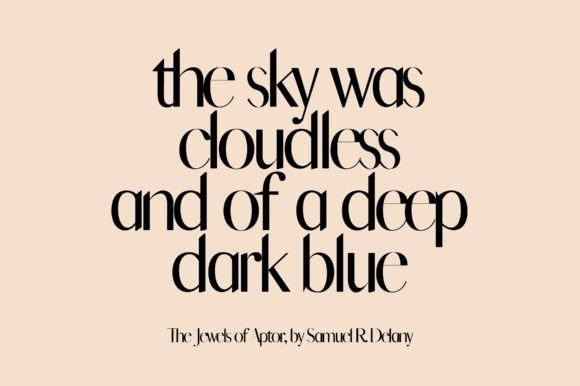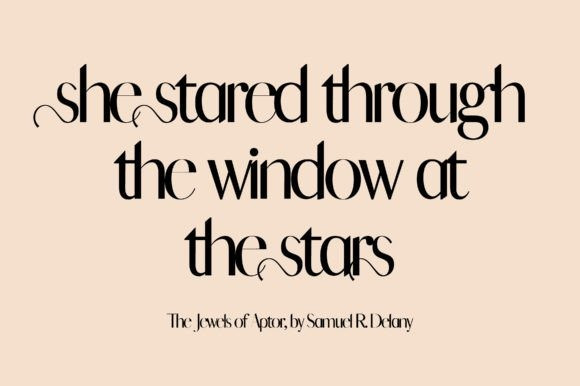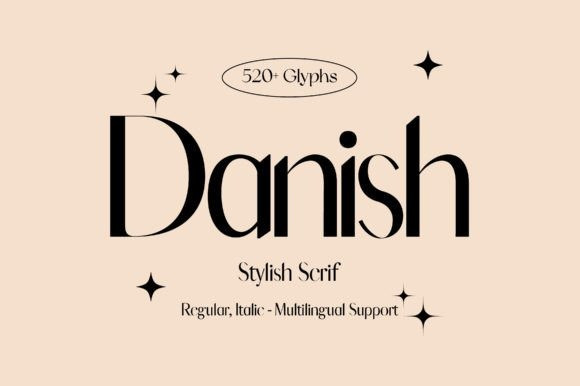
Danish Font
Danish Font – the chic and elegant sans serif font that brings a touch of sophistication to any project. With its minimalist design and clean lines, Danish is perfect for both print and digital applications, from branding and logos to editorial design and web typography.
With over 520 glyphs, Danish offers a wide range of character options, allowing you to create unique and dynamic designs. And with multi-lingual support, Danish is perfect for projects that require text in multiple languages.